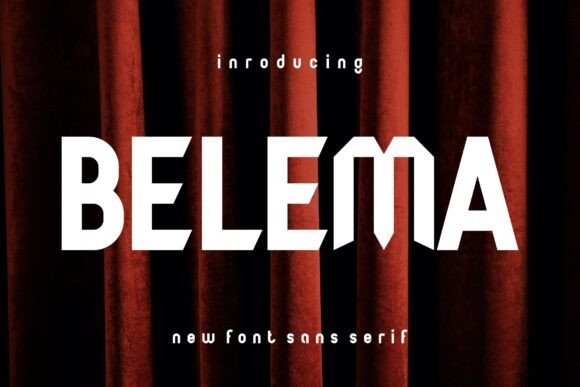
Unlock Your Creative Potential with Belema Font
Have you ever stared at a blank page, struggling to find the perfect font to bring your design to life? You’re not alone. As creatives, we’ve all been there – searching for that elusive combination of style and functionality to make our vision shine. But what if I told you that your search is over?
Meet Belema Font, a sans serif font that’s been carefully crafted to elevate your designs to new heights. With its unique blend of modernity and sophistication, Belema Font is the perfect tool for designers looking to add a touch of elegance to their work. Whether you’re working on a branding project, a website, or a social media campaign, Belema Font is sure to be a valuable addition to your design arsenal.
Belema Font Key Features
- Font Family: Belema Font is a sans-serif font family designed to cater to modern digital interfaces.
- Character Set: Belema Font supports a wide range of languages, including Latin, Cyrillic, and Greek scripts, making it a versatile choice for global branding and design projects.
- Unique Characteristics: Belema Font features a clean and minimalist design, with a focus on legibility and readability at various screen resolutions, including 72 dpi, 144 dpi, and 300 dpi.
- Font Sizes: Belema Font is available in multiple weights, ranging from Light to Extra Bold, allowing designers to choose the perfect font size and style to match their brand’s visual identity.
- Font Size: Each font weight is available in a range of sizes, from 8 points to 72 points, ensuring that designers have the flexibility to use Belema Font in various design contexts.
Belema Font Review
I recently had the chance to work with the Belema Font, and I’m here to share my honest thoughts on this typeface.
- Unique Character**: Belema Font has a distinctive and quirky personality that sets it apart from more common fonts.
- Legibility**: Despite its unconventional appearance, Belema Font is surprisingly easy to read, especially in larger sizes.
- Cultural Significance**: The font is inspired by African scripts, making it a great choice for designers looking to incorporate cultural diversity into their work.
- Limited Versatility**: Belema Font may not be the best choice for projects that require a more traditional or neutral font.
- Limited Support**: As a relatively new font, Belema Font may not be widely supported by all software and devices.
Belema Font is a bold and eye-catching typeface that’s perfect for designers who want to add some personality to their projects. While it may not be suitable for all types of projects, it’s a great choice for those looking to incorporate cultural diversity and uniqueness into their work.
Some tips for getting the most out of Belema font include using it for titles, headings, and other large text elements, as it is a bold and eye-catching font. Common use cases include creating posters, flyers, and other marketing materials where a bold and attention-grabbing font is desired.
Montserrat is a geometric sans-serif font inspired by the urban environment of Buenos Aires. It’s ideal for headings, titles, and short blocks of text where a strong, modern feel is desired.
Compared to Belema Font, Montserrat has a more angular and geometric design, which gives it a distinctive look. While Belema Font is more rounded and elegant, Montserrat is perfect for designers who want to create a bold, urban feel.
What is the recommended font size and line height for using Belema Font effectively?
For optimal readability, we recommend using Belema Font with a font size of at least 12px and a line height of at least 1.5x the font size. This will ensure that the text is clear and easy to read, even in digital contexts where screen real estate is limited.